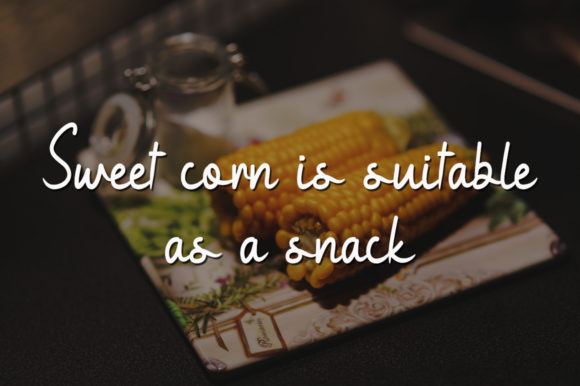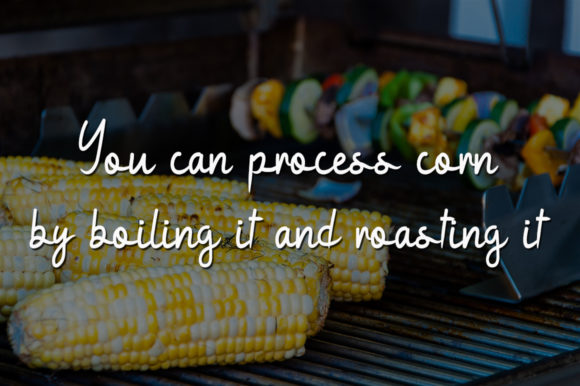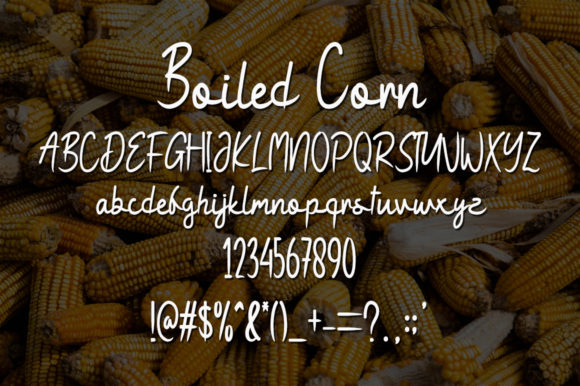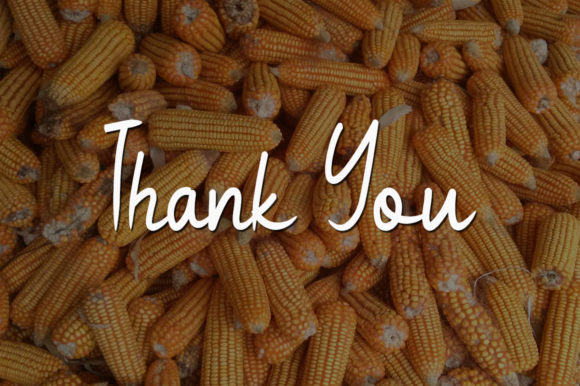
Discover the Sweet Charm of Boiled Corn Font
Have you ever stared at a blank page, feeling stuck and unsure of where to begin? For designers, those moments can be daunting, but sometimes all it takes is the right tool to spark inspiration. For me, it was the discovery of Boiled Corn Font – a sweet and delicate handwritten font that has become my go-to companion for creating whimsical designs.
Boiled Corn Font is more than just a pretty face; it’s a masterfully crafted font designed to add a touch of elegance to any project. Its rounded letters and smooth curves make it incredibly versatile, perfect for a wide range of applications, from wedding invitations to children’s book illustrations. Whether you’re a seasoned designer or just starting out, Boiled Corn Font is an invaluable addition to your toolkit.
Boiled Corn Font Key Features
- Unique Characteristics: Boiled Corn Font features a unique, playful design with a boiled corn-inspired aesthetic, adding a touch of whimsy to any design project.
- Language Support: The font supports a wide range of languages, including Latin, Cyrillic, and Greek scripts, making it a versatile choice for global design applications.
Boiled Corn Font Review
I must say, I’m quite impressed with the unique personality of Boiled Corn Font. ✨ The font’s playful, hand-drawn style adds a touch of whimsy to any design project. It’s perfect for creating a fun, approachable atmosphere in children’s educational materials, food labels, or even advertisements for quirky brands.
- ✨ Unique and playful design style
- ✨ Suitable for a wide range of design projects, including children’s materials and food labels
- ✨ Supports a variety of languages
However, there are a few limitations to consider: ⚠️ The font’s irregularities can make it challenging to use in situations where precision is crucial. Additionally, some characters may appear slightly distorted or uneven. It’s essential to be aware of these limitations and use the font judiciously.
- ⚠️ Irregularities can make it challenging to use in precise applications
- ⚠️ Some characters may appear distorted or uneven
Overall, Boiled Corn Font is a delightful addition to any designer’s toolkit. While it may not be suitable for every project, its unique charm makes it a great choice for designs that require a playful, approachable vibe.
For a more authentic look, use the font in combination with a distressed texture or a vintage-style background. You can also add some creative spacing between the text to make it stand out.
The Boiled Corn Font is ideal for creating a vintage or distressed look in designs. It’s commonly used in:
Distressed textures and backgrounds
Vintage-style advertisements and posters
Food and drink branding
Retro-style packaging and labels